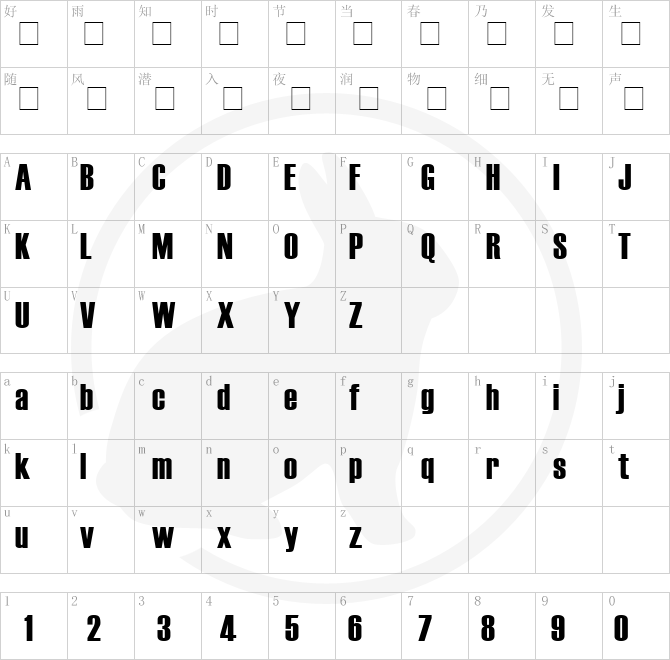
- Font Name:Haettenschweiler
Haettenschweiler-copy-2-.ttf is a very beautiful artistic font, Haettenschweiler-copy-2-.ttf is widely used in the design and printing of various books and pictures,Haettenschweiler-copy-2-.ttf has a strong visual impact,Haettenschweiler-copy-2-.ttf is a commonly used font in newspapers, magazines and books, and is used in posters, e-commerce Poster design, store design, logo design, font design and other fields.Haettenschweiler-copy-2-.